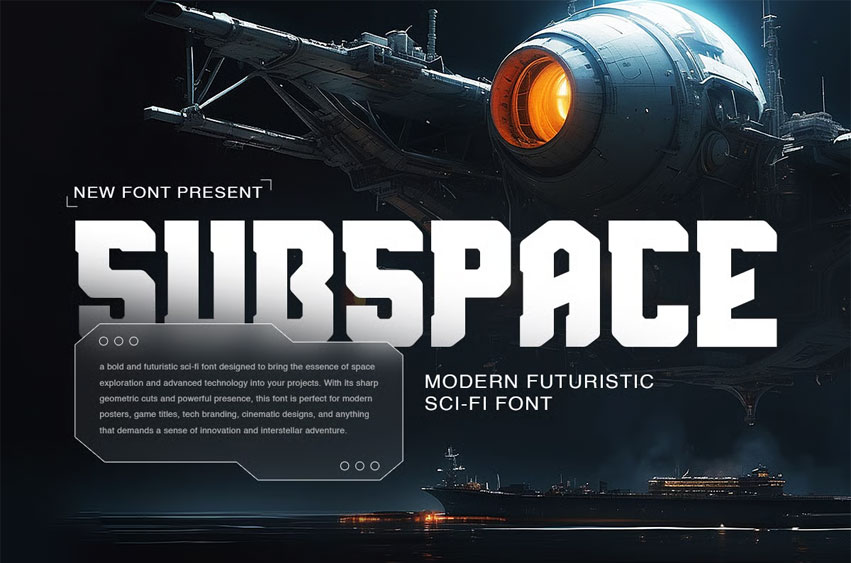
Subspace Font Futuristic Font is a bold, sci-fi typeface designed for creators who want to capture the essence of futuristic exploration and high-tech innovation. Its geometric structure and heavy contrast convey strength and precision, making it ideal for projects that need a modern and commanding presence. With sleek lines and mechanical sharpness, Subspace embodies the spirit of advanced machinery and interstellar aesthetics.
Relevance and Use Cases: Perfect for game titles, sci-fi movie posters, tech branding, esports visuals, digital interfaces, and conceptual packaging that call for a bold, futuristic impression.